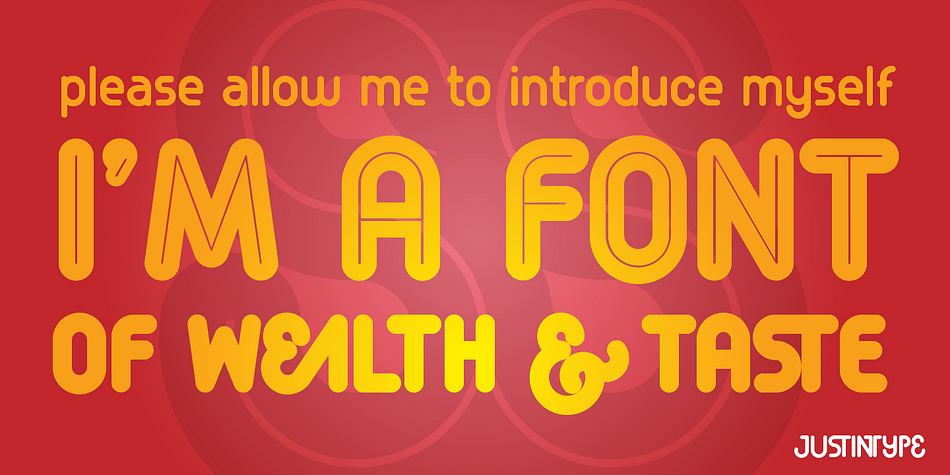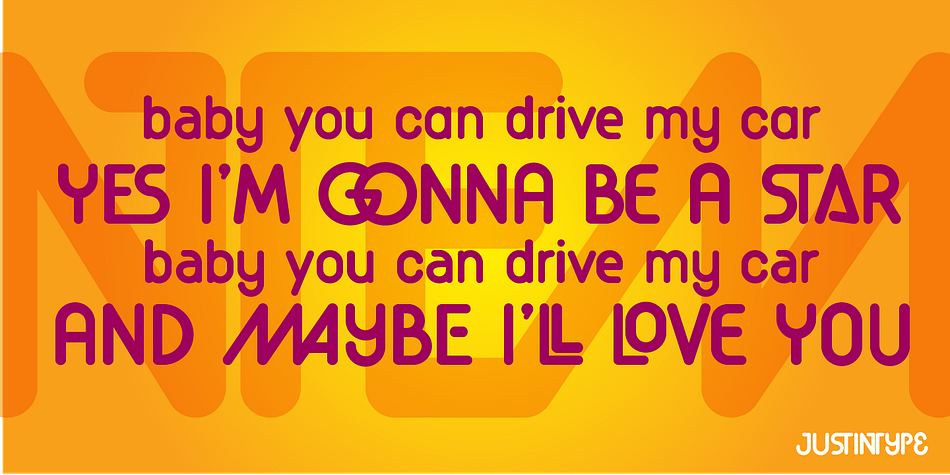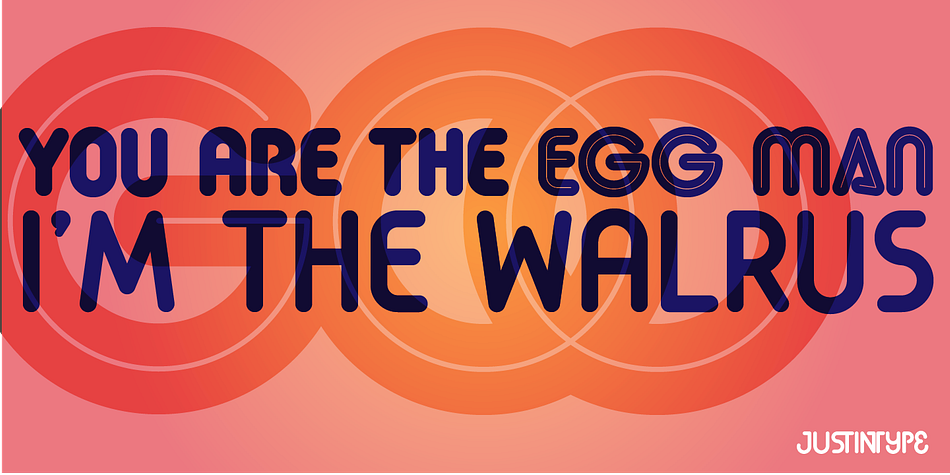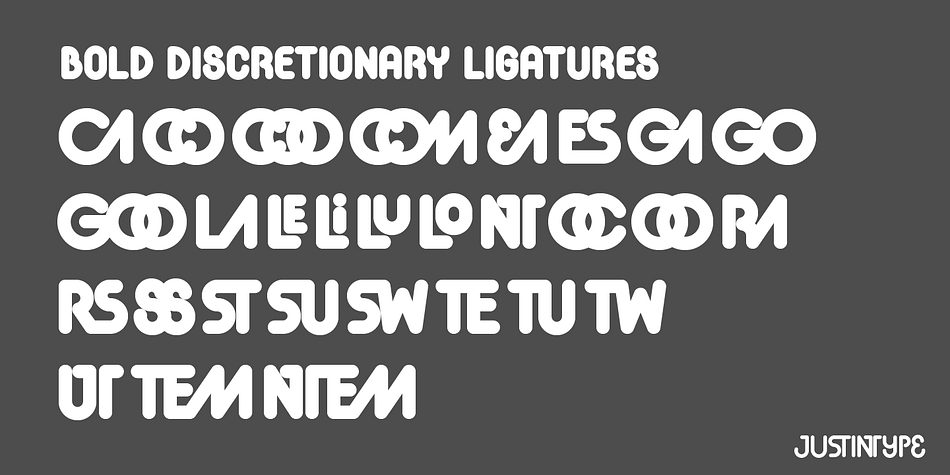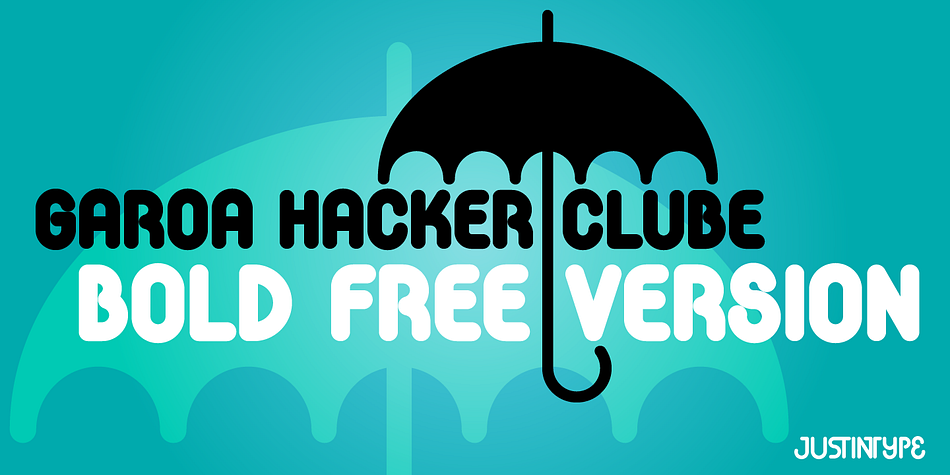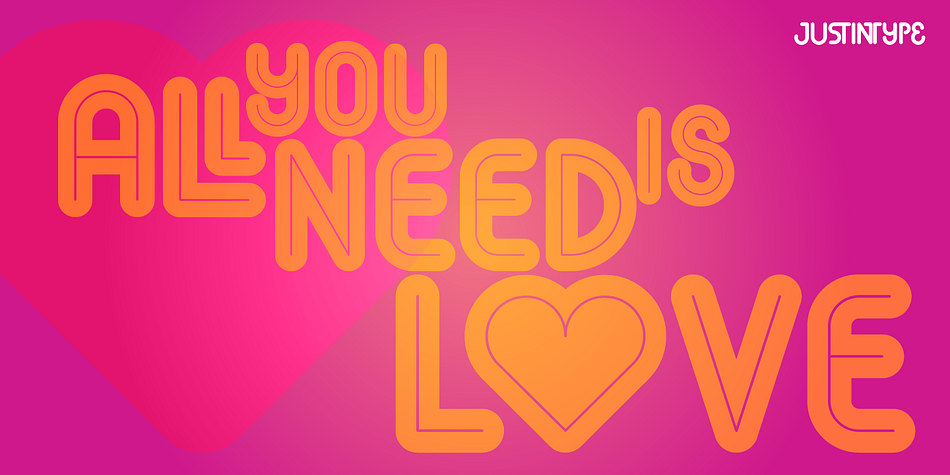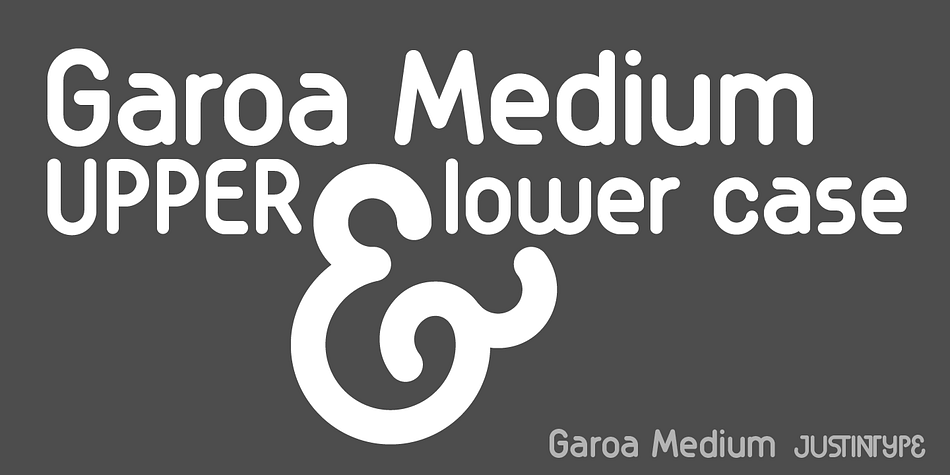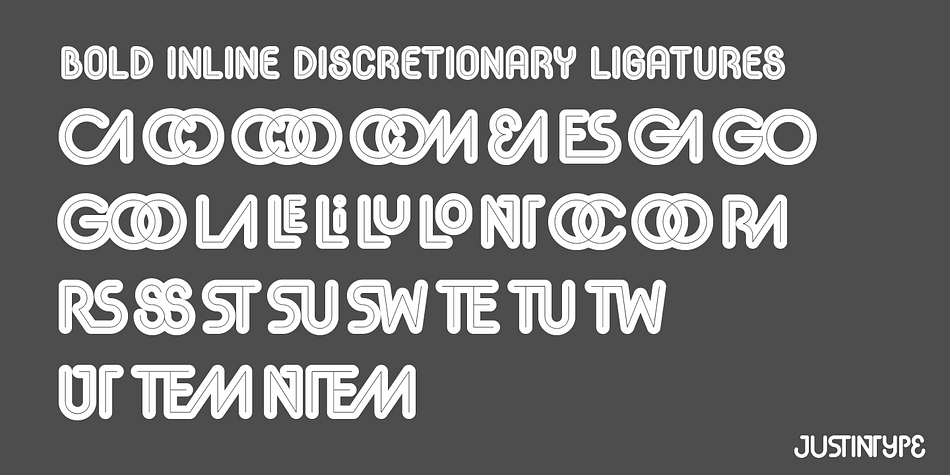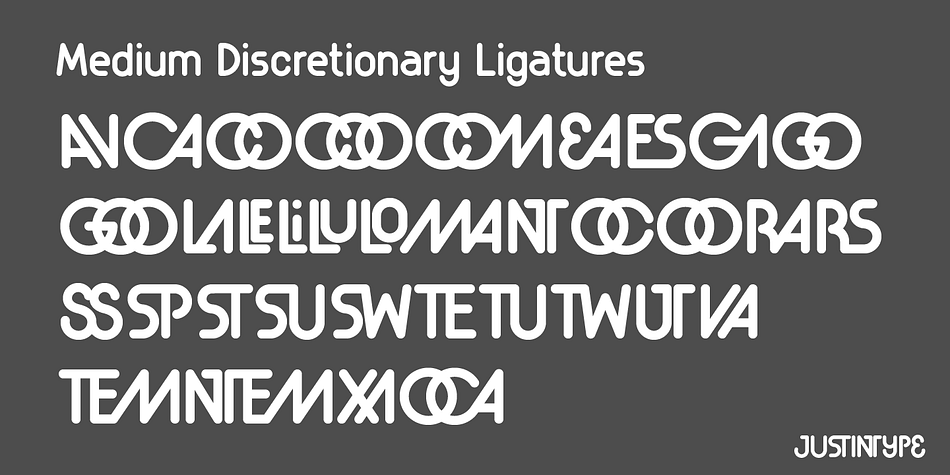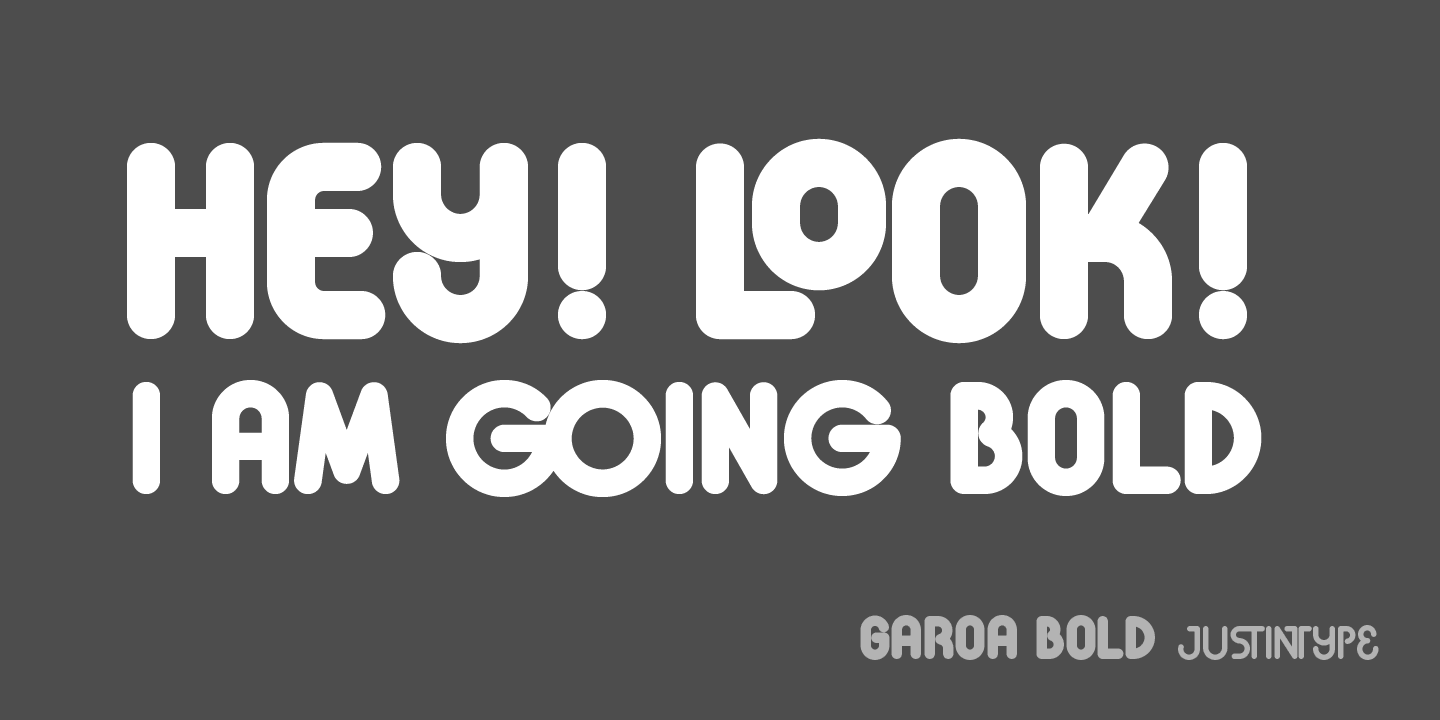
Designed by Tony de Marco and Diego Maldonado, Garoa is a display sans font family. This typeface has four styles and was published by Just In Type.
Inspired by 70’s design, especially Herb Lubalin’s work, the typeface Garoa is a rounded mechanical display font without optical compensations, ideal for large bodies.
The medium weight has lower case for short texts, and the Bold versions have singular upper case glyphs, with some alternates (at least one alternate per letter – some with OpenType features some using caps on the keyboard).
The Garoa Hacker Clube Bold version is free and contains no OpenType features, but the glyphs have the same design as on Garoa Bold.